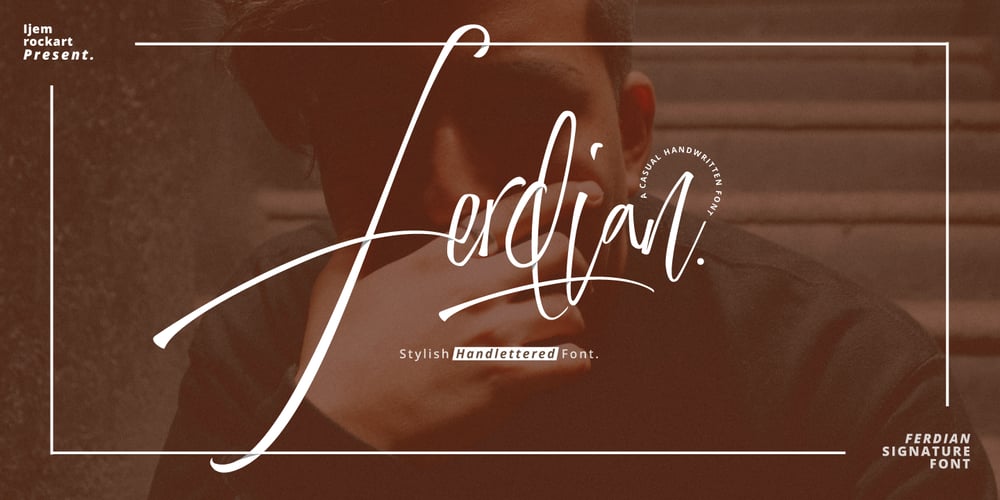
Ferdian Signature Font Family was designed by Ferdiansyah and published by ijemrockart. Ferdian Signature contains 1 styles and family package options. Ferdian Signature is a new, fresh and modern script with a handmade calligraphy style, decorative characters and a dancing baseline! It is so beautiful on invitations, greeting cards, branding materials, business cards, quotes, posters, and more!Ferdian Signature come with 300 glyphs+. The alternative characters were divided into several Open Type features such as Swash, Stylistic Sets, Stylistic Alternates, and Ligature. The Open Type features can be accessed by using Open Type savvy programs such as Adobe Illustrator, Adobe InDesign, Adobe Photoshop Corel Draw X version, And Microsoft Word. And this font has given PUA unicode (specially coded fonts). so that all the alternate characters can easily be accessed in full by a craftsman or designer.Ferdian Signature Features:Uppercase & LowercaseInternational Language & Symbols Support Punctuation & Number PUA Unicode Range Standard Ligatures Discretionary Ligatures Stylistic Alternates Stylistic Set 01-02